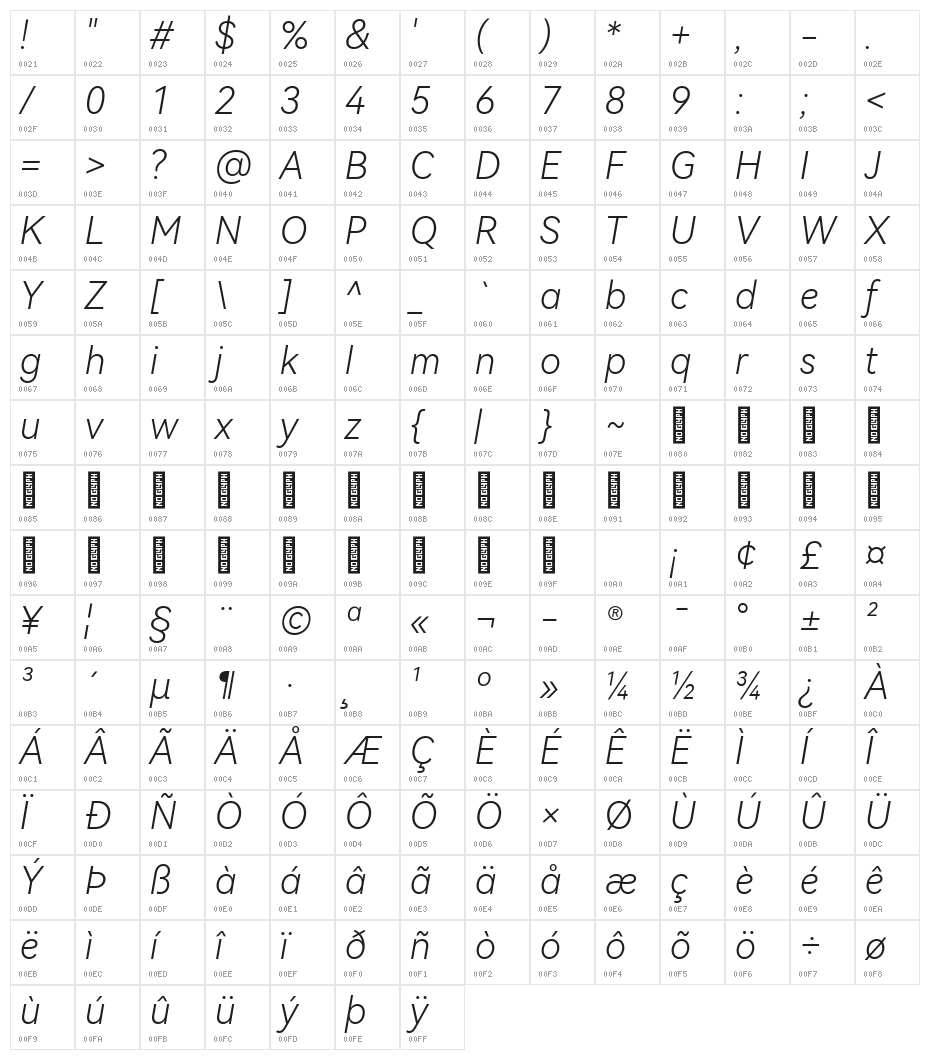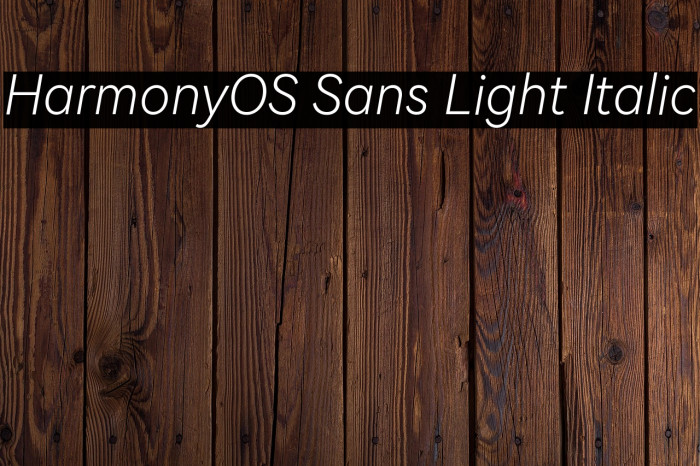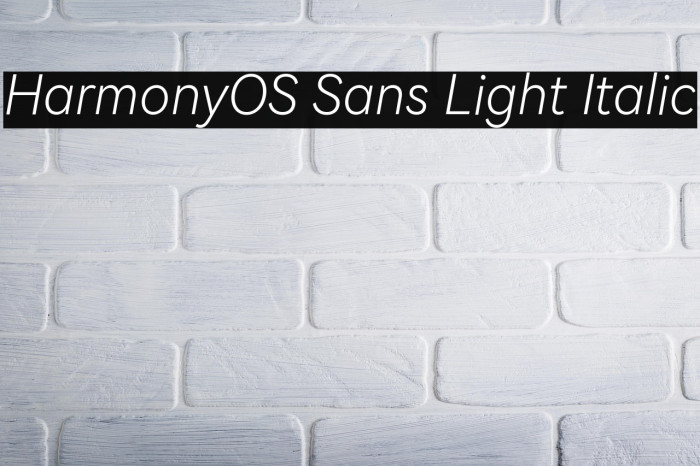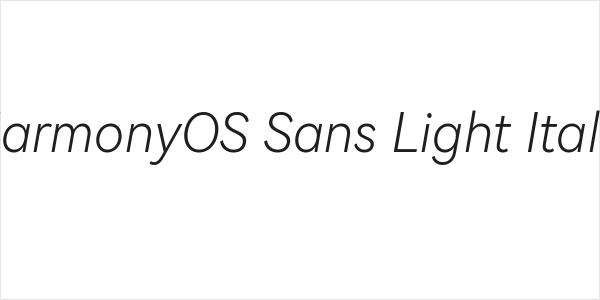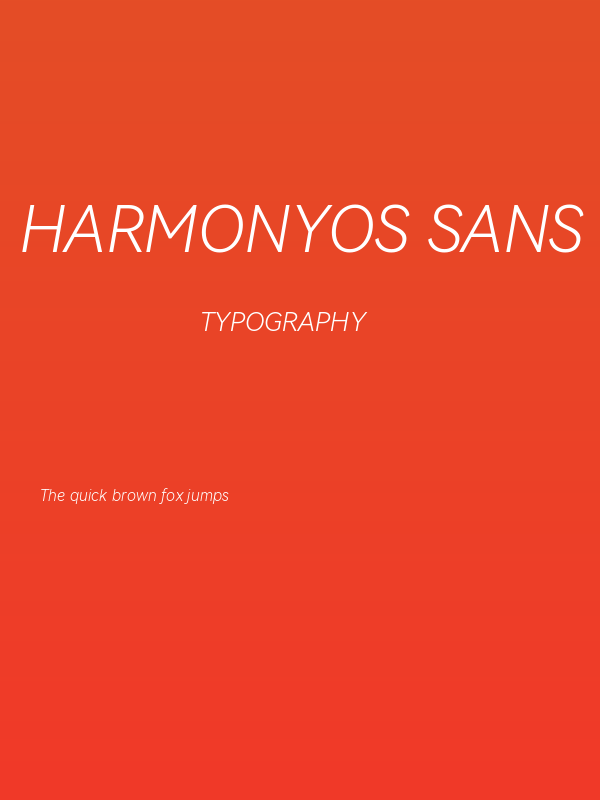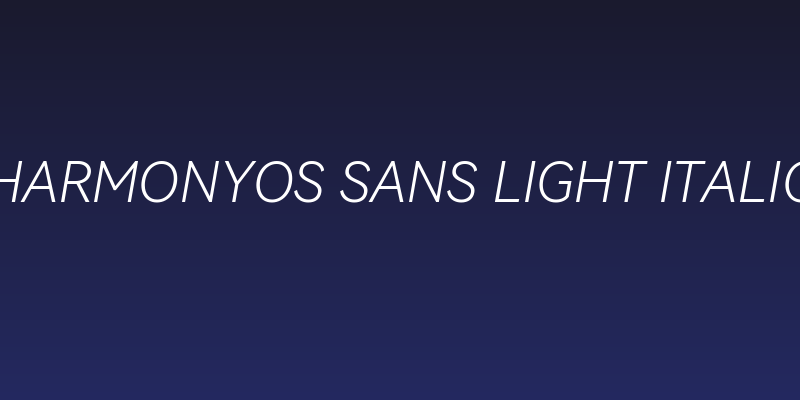
HarmonyOS Sans Light Italic Font
HarmonyOS Sans Light Italic Description
This font features a sleek and modern sans-serif design with a light weight and italic style. The characters are clean and streamlined, offering a contemporary look that is both elegant and easy to read. The uppercase and lowercase letters are well-proportioned, with a slight slant that adds a dynamic feel. The numerals are consistent with the overall style, maintaining clarity and simplicity. Special characters are included, providing versatility for various uses. The font's design is suitable for digital and print media, offering a professional appearance that is ideal for modern branding and communication.
| Proposed Projects | Ideal for branding, digital interfaces, and modern print materials. |